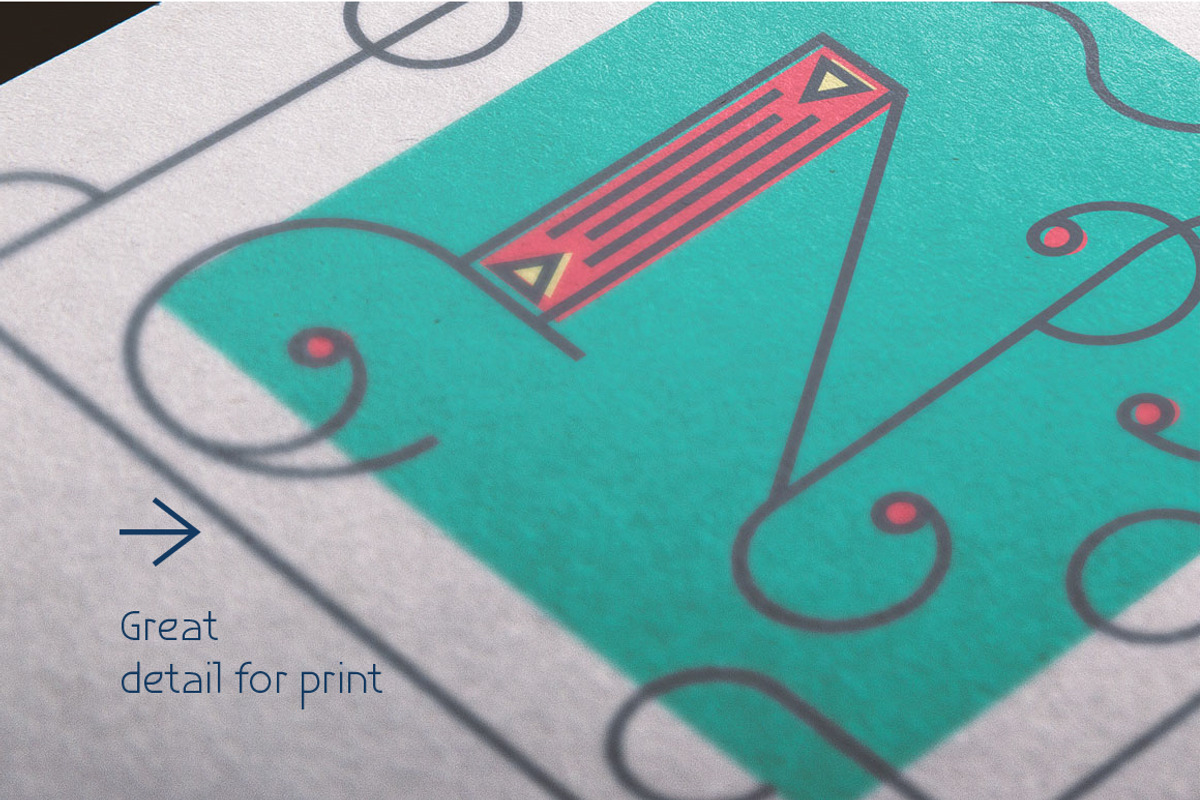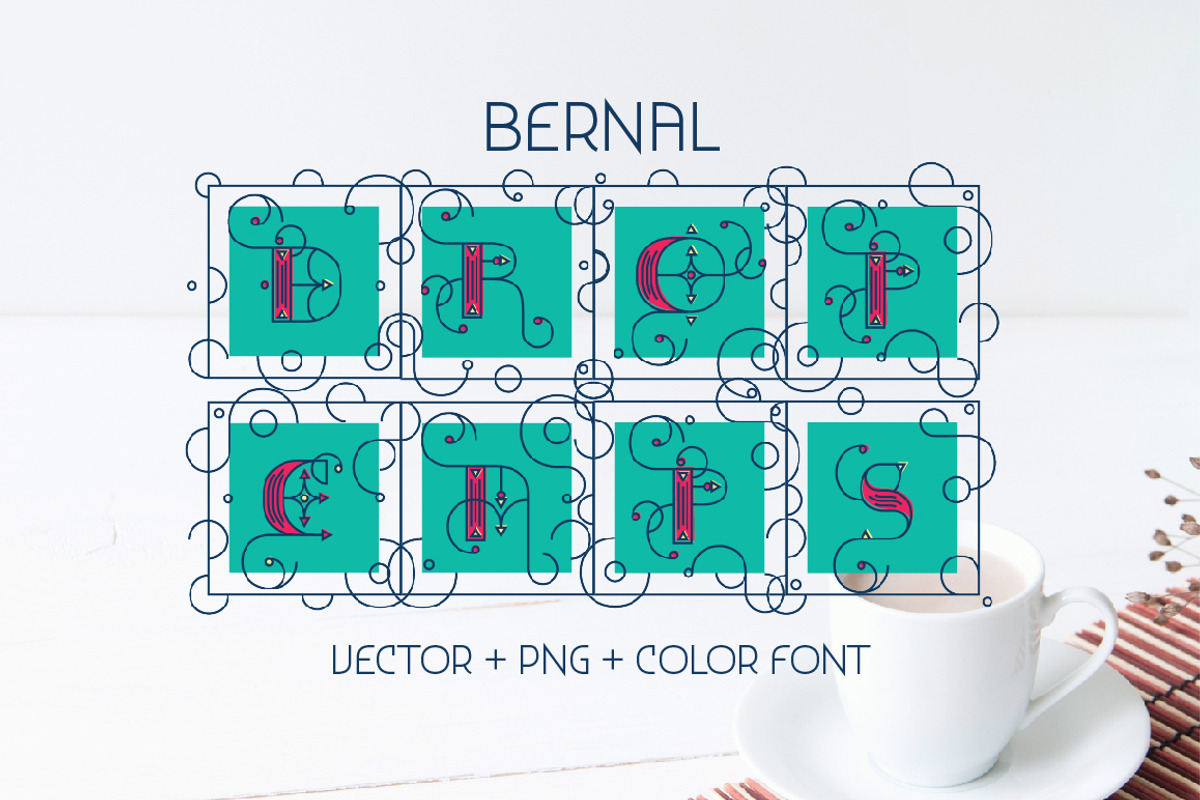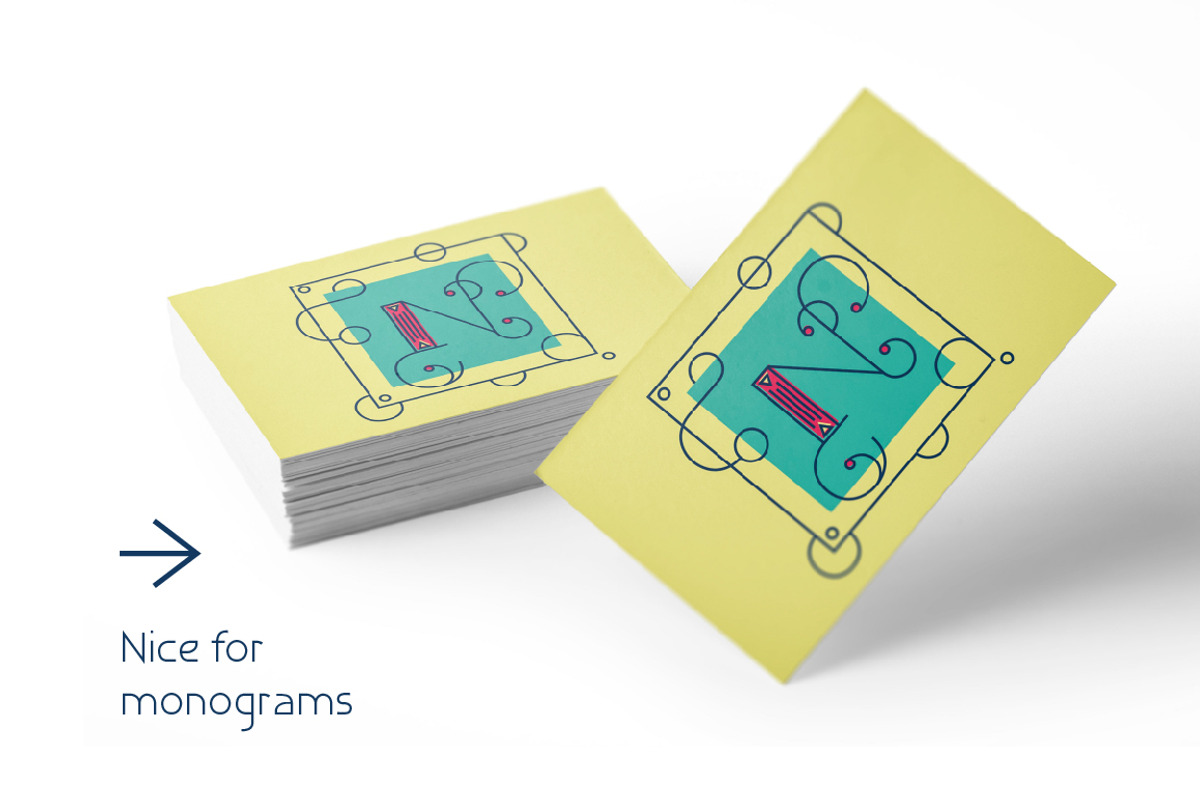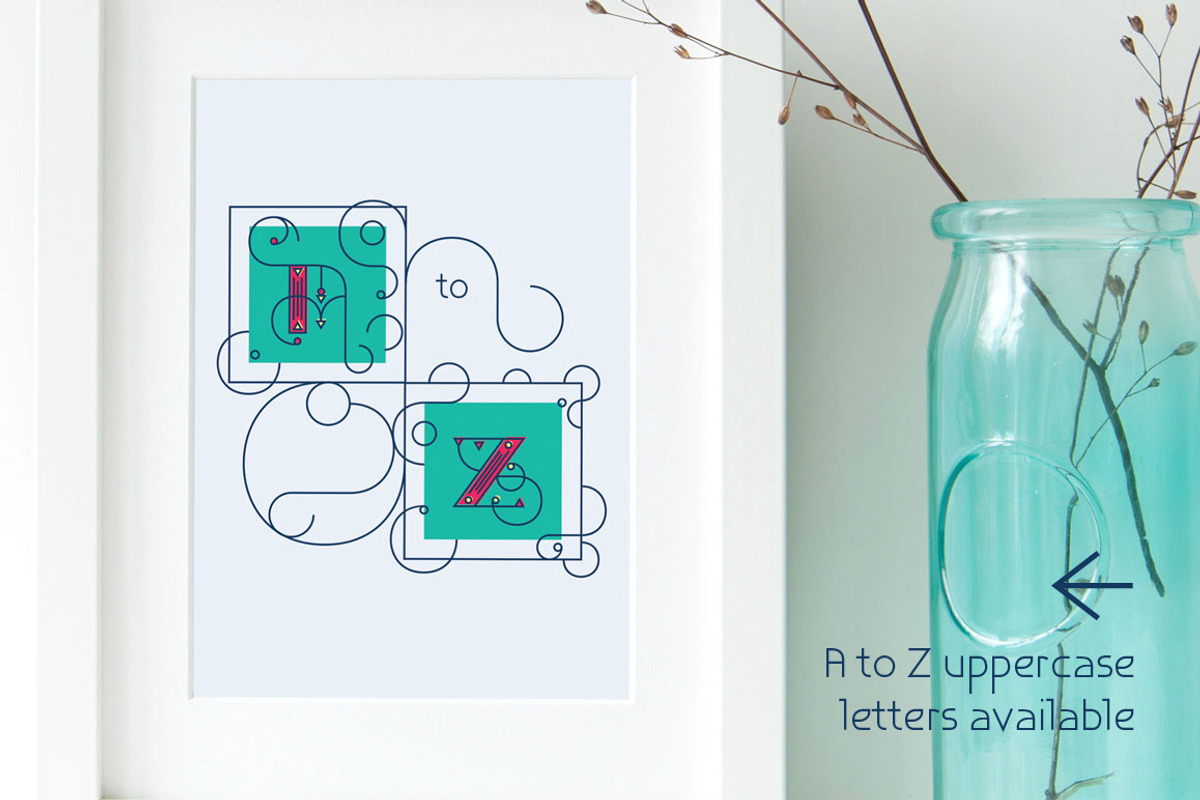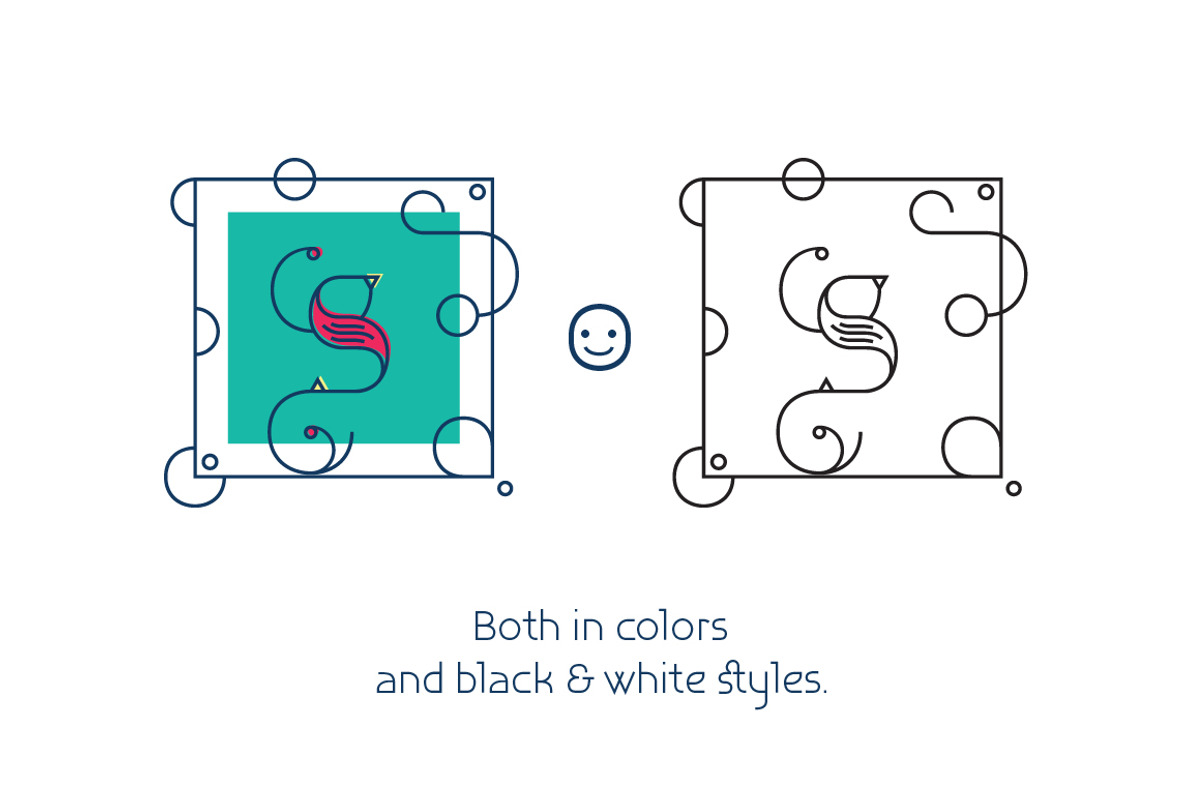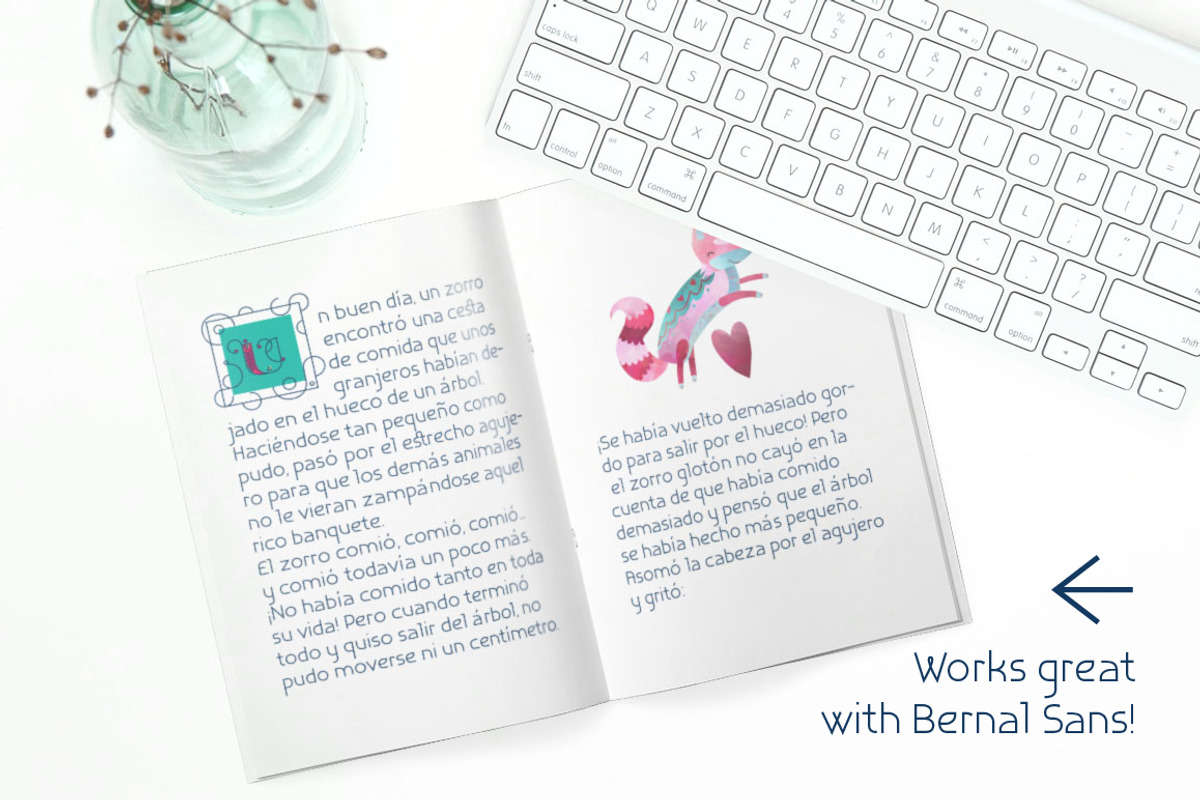
Bernal Drop Caps Color typeface
Bernal Drop Caps is perfect for your new project! Add the extra mile your type is requiring, and get extra attention to your work!
Why Bernal Drop Caps Color typeface is worth a look
Bernal Drop Caps Color typeface by MaGo fits naturally into Branding, posters, packaging, typography.